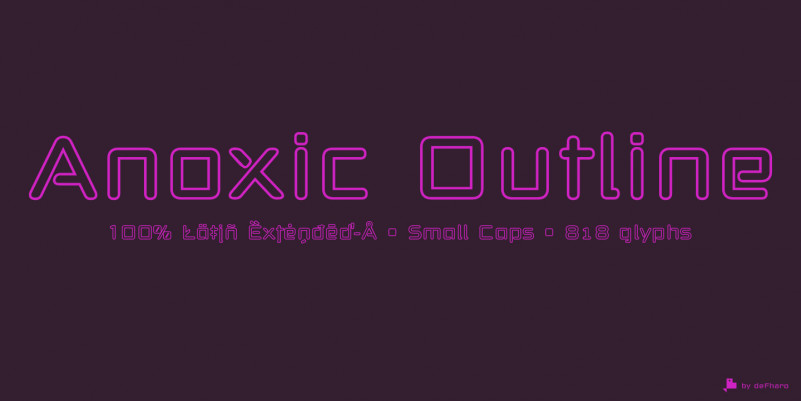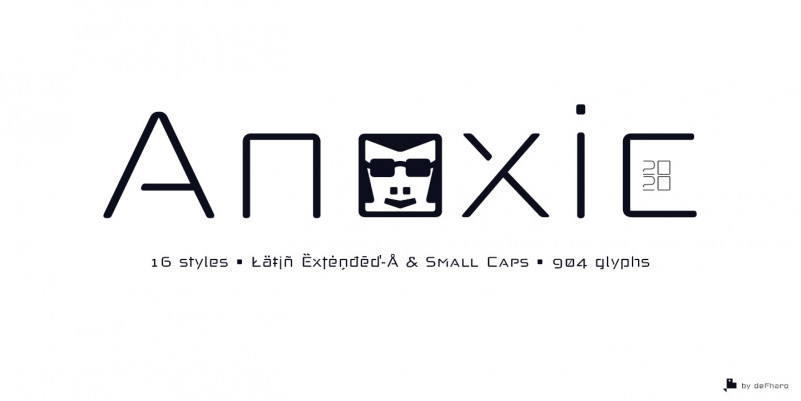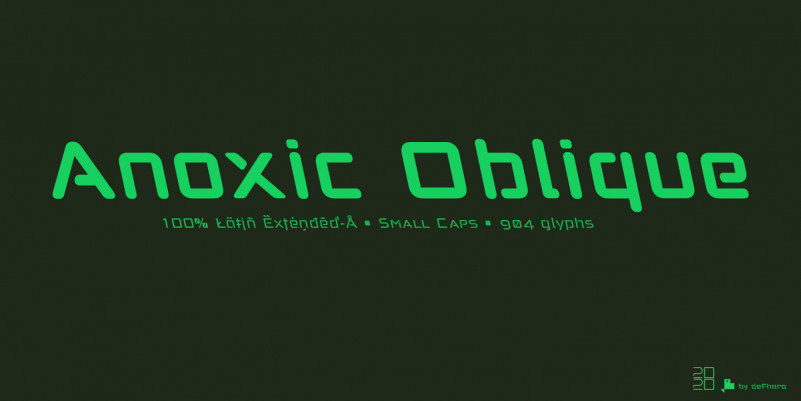
Anoxic Font Family is a Semi-Stencil typeface family with a rounded finish with 16 styles in 4 families, Roman, Small Caps, Outline & Oblique, including small letters, 9 number sets and 3 uppercase letters, plus advanced Open functions Type.
Anoxic fonts is a family design that gives it a futuristic and sci-fi look. Inspired by the Bauhaus school and is specially designed for use in small sizes for screen and printing.